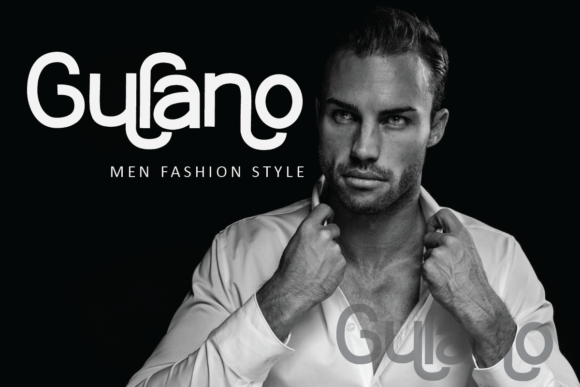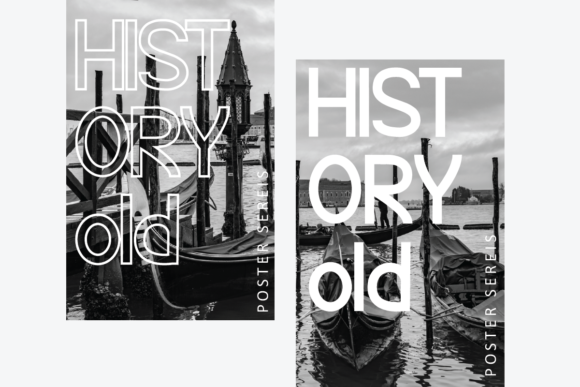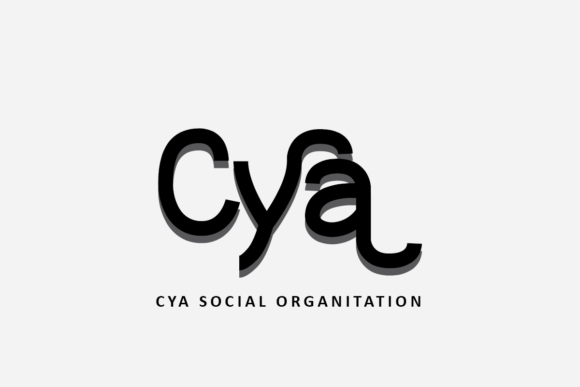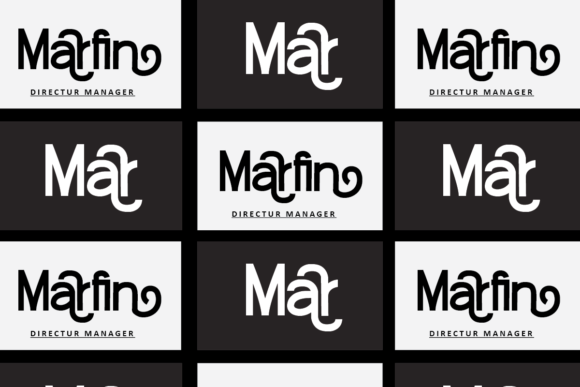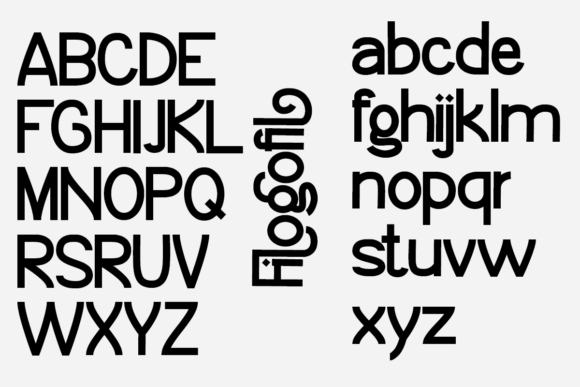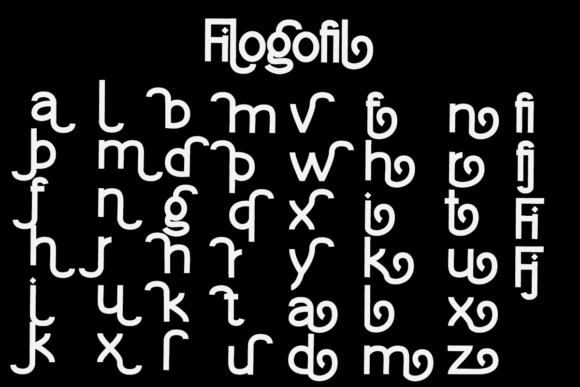
Introduction to Filogofil Font Font
Fonts play a crucial role in design, and the Filogofil Font font is a typeface that brings both character and versatility to any project. Whether you’re working on a branding project, a website, or a print design, the Filogofil Font font offers a unique style that can elevate your work.
Filogofil is a modern and clean sans serif font.
Its versatility and neat vibe will brighten up each of your designs Have fun with this beautiful font and explore its endless variations.
Key Features of Filogofil Font Font
Why Choose Filogofil Font Font?
The Filogofil Font font is more than just a typeface – it’s a design tool that helps you communicate your message with style and clarity. Its unique character set and versatile design make it suitable for a wide range of applications, from elegant invitations to bold headlines.
With its carefully crafted letterforms and balanced proportions, the Filogofil Font font ensures readability and visual appeal across all mediums.
What makes Filogofil Font font special?
The Filogofil Font font stands out with its unique design, exceptional readability, and versatility across various design applications.